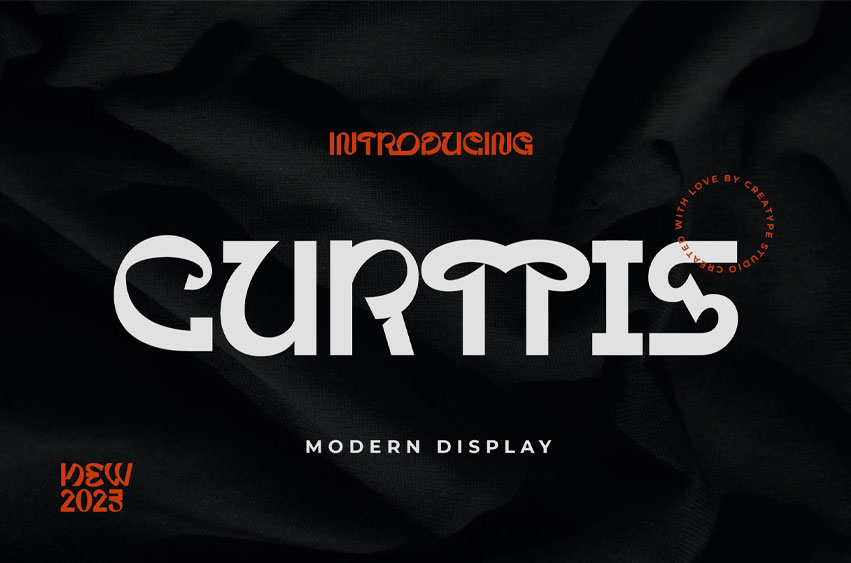
Curtis Font is a bold, modern display typeface, so it showcases the quirky charm of your brand with a powerful presence.
Curtis is perfect for branding projects, logos, wedding designs, social media posts, advertisements, product packaging, product designs, labels, photography, watermarks, invitations, stationery, and any projects that need handwriting taste.
• A ton of glyphs
• Ligature & Alternate
• Fonts include multilingual support for: Afrikaans, Albanian, Czech, Danish, Dutch, English, Estonian, Finnish, French, German, Hungarian, Italian, Latvian, Lithuanian, Norwegian, Polish, Portuguese, Slovak, Slovenian, Spanish, Swedish.